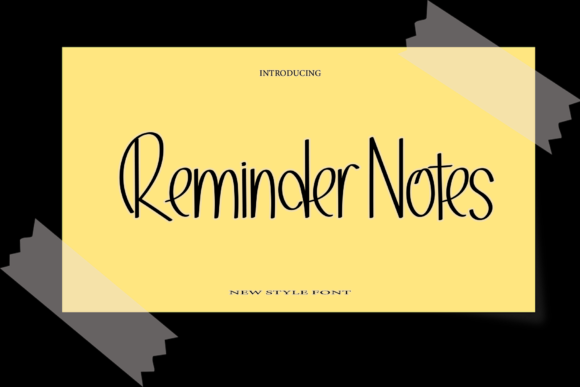
Journey into a realm of creativity, where the Reminder Notes Font elegantly intertwines classic charm with contemporary flair. This script font is meticulously crafted to evoke the essence of luxury and sophistication, transforming your digital creations into captivating works of art.
Beyond its aesthetic allure, the Reminder Notes Font is a versatile masterpiece that seamlessly adapts to a myriad of design endeavors. Whether you're creating personalized invitations, enchanting logos, captivating social media posts, or inspiring posters, this font will elevate your projects to new heights.
Indulge in the beauty of its delicate strokes, reminiscent of handwritten letters penned with care and precision. The Reminder Notes Font captures the essence of timeless elegance, ensuring that your designs leave a lasting impression.
Unleash your creativity and embark on an artistic voyage with the Reminder Notes Font. Its graceful curves and enchanting details will transform your designs into visual masterpieces. Elevate your projects to the realm of luxury and captivate your audience with every word you craft.